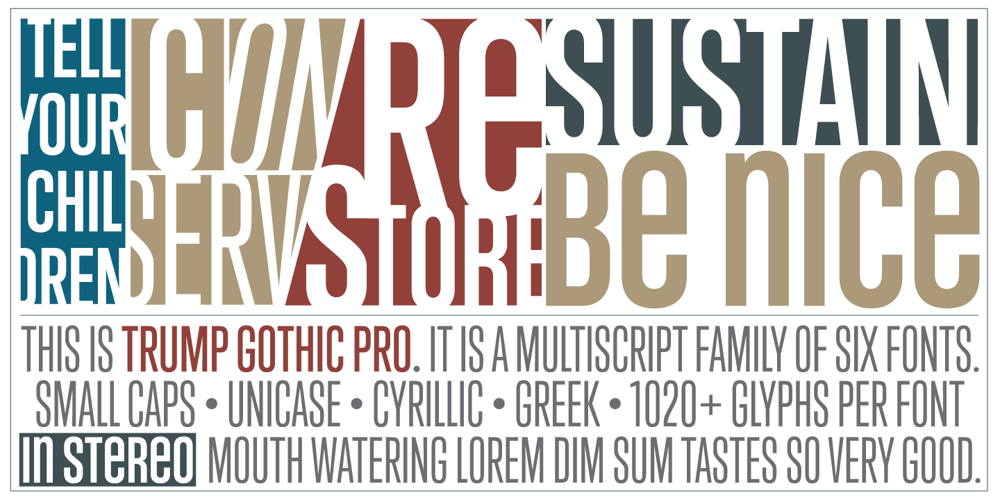
Trump Gothic Pro Font Family was designed by Georg Trump, Stanislav Maršo, Patrick Griffin and published by Canada Type. Trump Gothic Pro contains 6 styles and family package options. Trump Gothic is a reconception of ideas from Georg Trump’s seminal 1955 Signum typeface and its later reworking (Kamene) by Czech designer Stanislav Marso. Originally cobbled together for a variety of film projects in the late 1990s and early 2000s, the Trump Gothic family was made available for the general public in 2005. Shortly thereafter, it became a common sight in movie credits, on posters and magazine covers, in fashion branding and on corporate web sites. Though countless attempts have been made to emulate it, its unique totality and attractiveness to layout designers was never really topped. Its appeal is largely due to its double-duty toolbox: An economic functionality that allows it to pack large amounts of information in small spaces, and a clear, modular aesthetic that gives it the ability to emphasize short text in large sizes, all without sacrificing legibility or giving in to dated or over-rehashed industrial gothic forms. The typeface was redrawn, refitted, optimized and greatly expanded in 2013, and the result is Trump Gothic Pro, a multiscript family of six fonts, each containing over 1020 glyphs and a wealth of OpenType features, including small caps, caps-to-small-caps, stylistic alternates, unicase/monocase alternates, fractions, ordinals, class-based kerning, and support for Latin, Cyrillic and Greek locales.